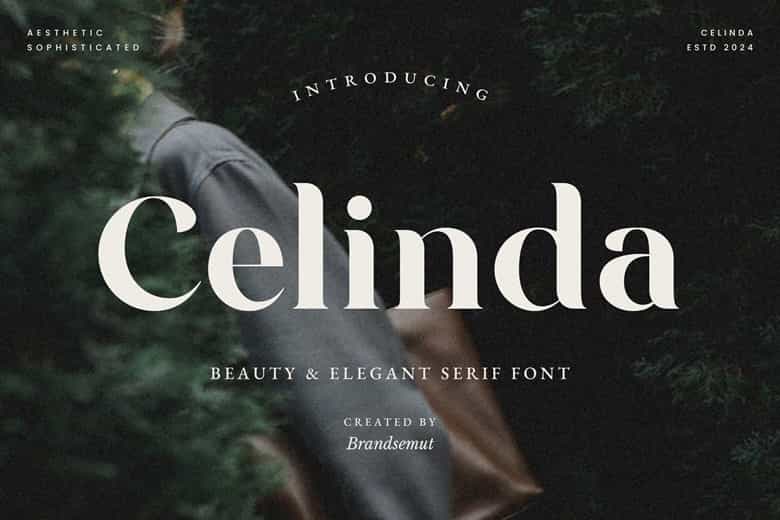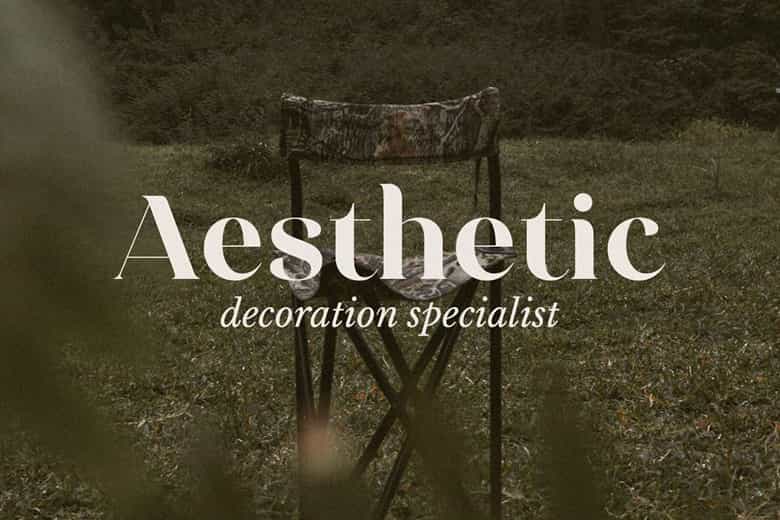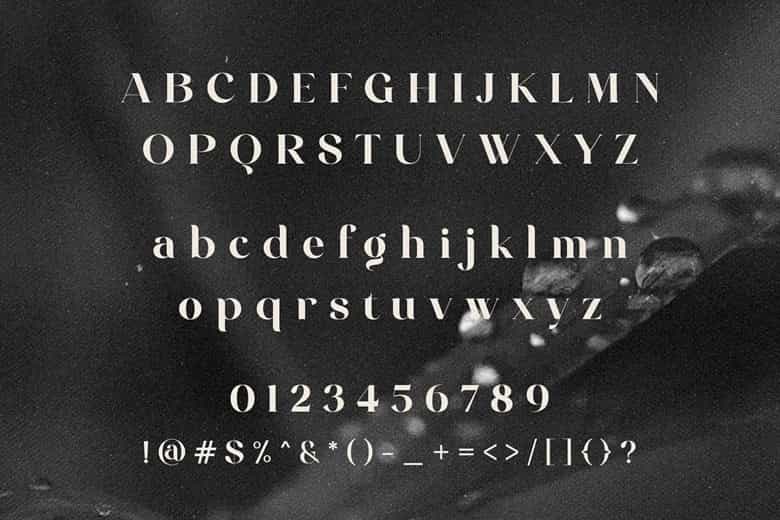
Celinda is a beauty and elegant serif font that is suitable for any project, as a heading and for logo, branding, magazine, packaging, and invitation. Celinda is elegant with minimalistic straight edges and soft curves that will enhance the sophistication of any design.